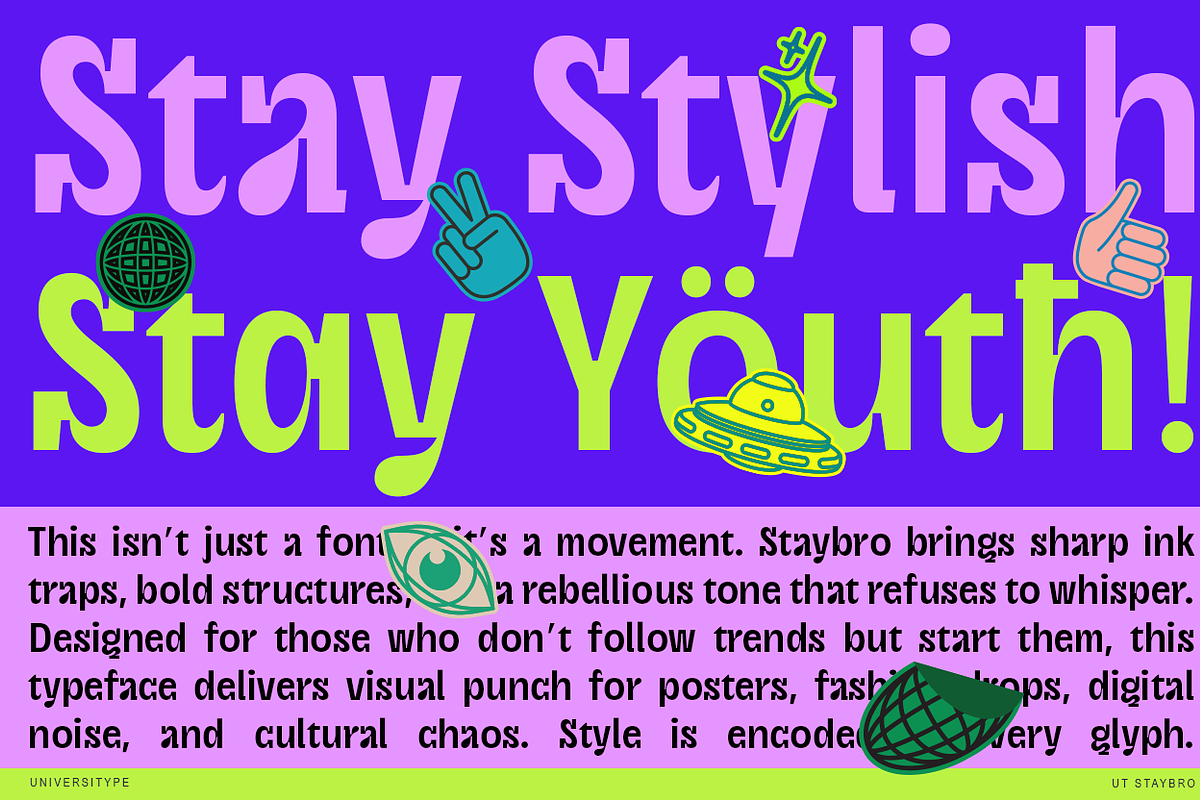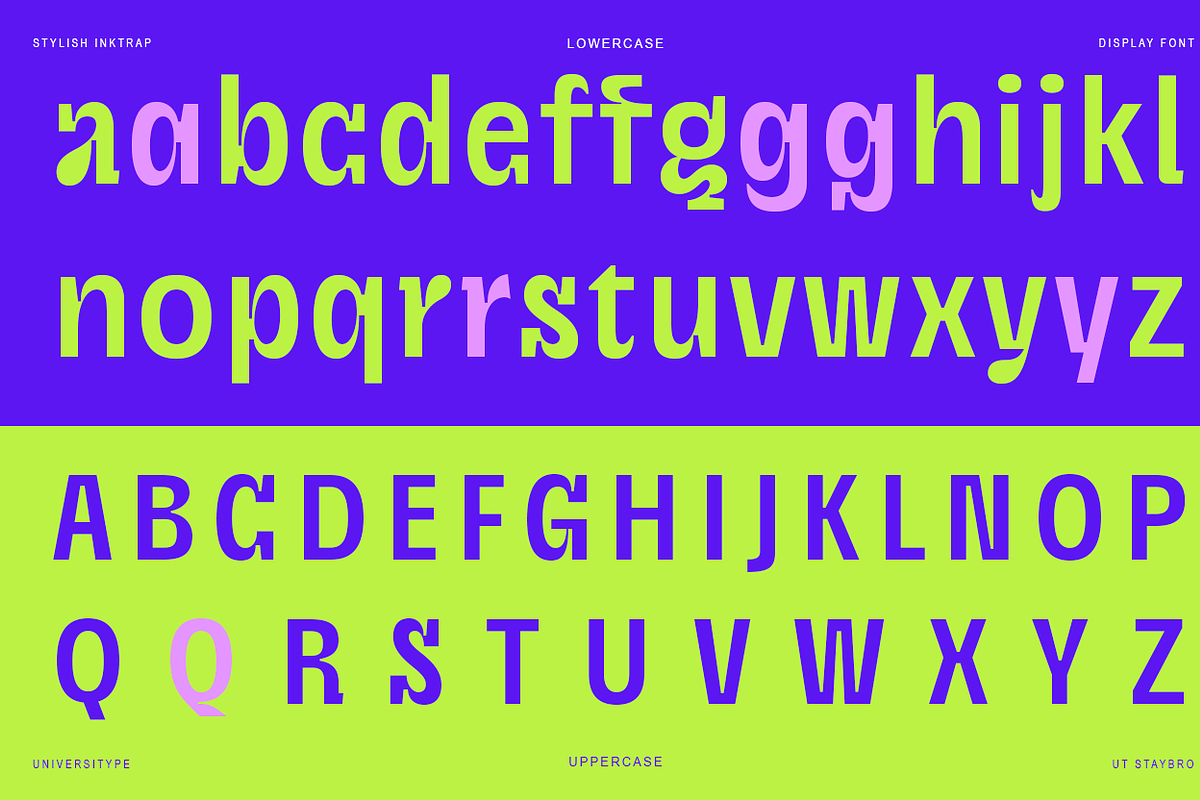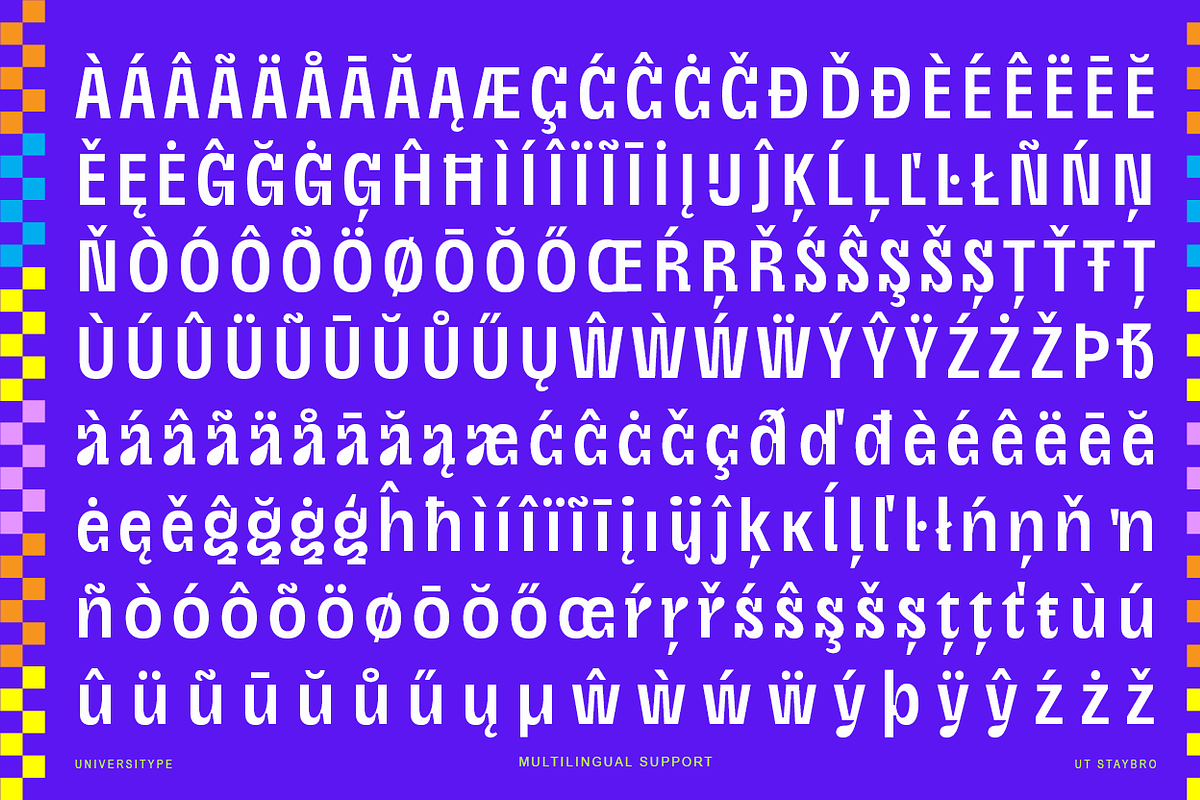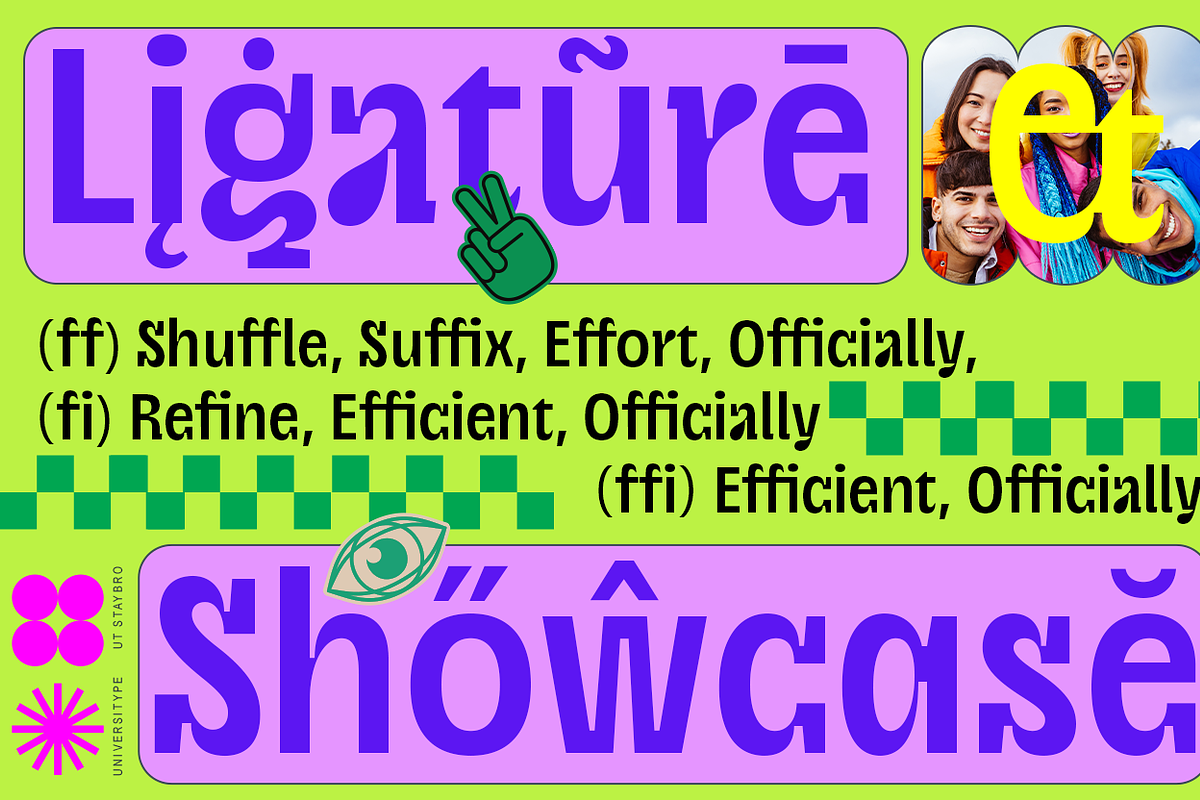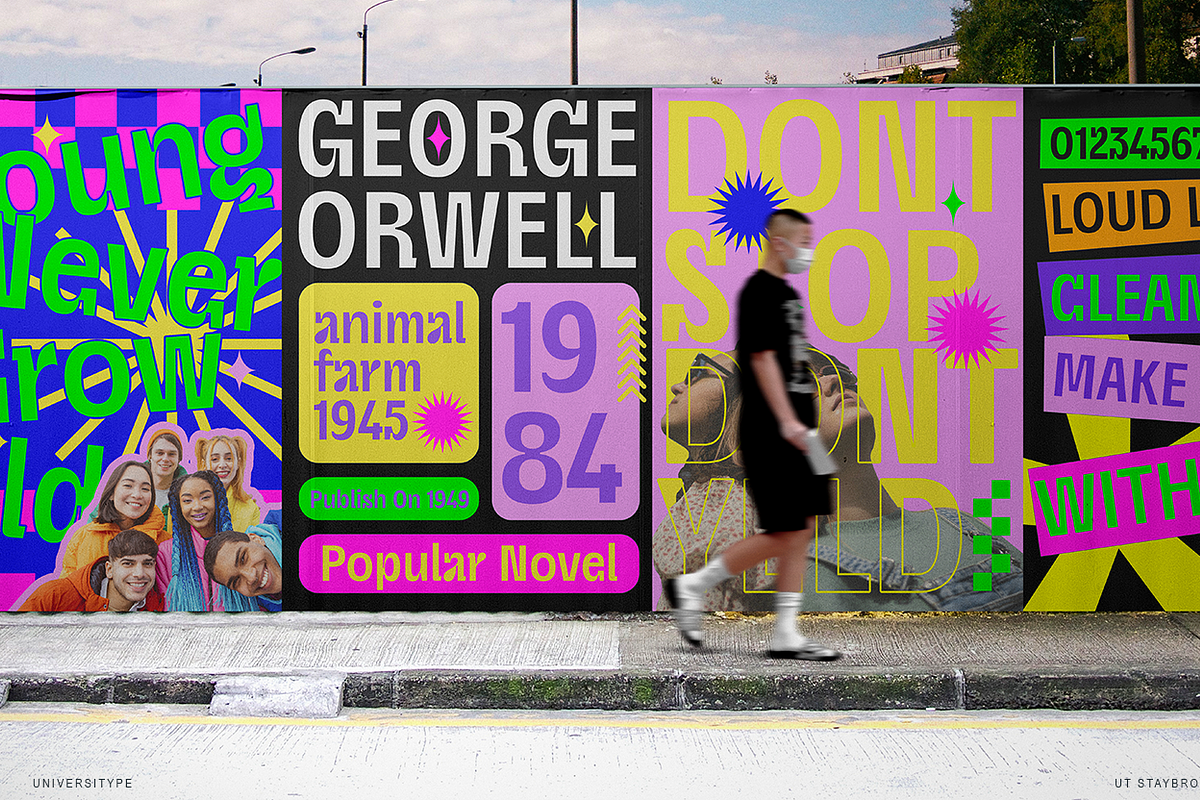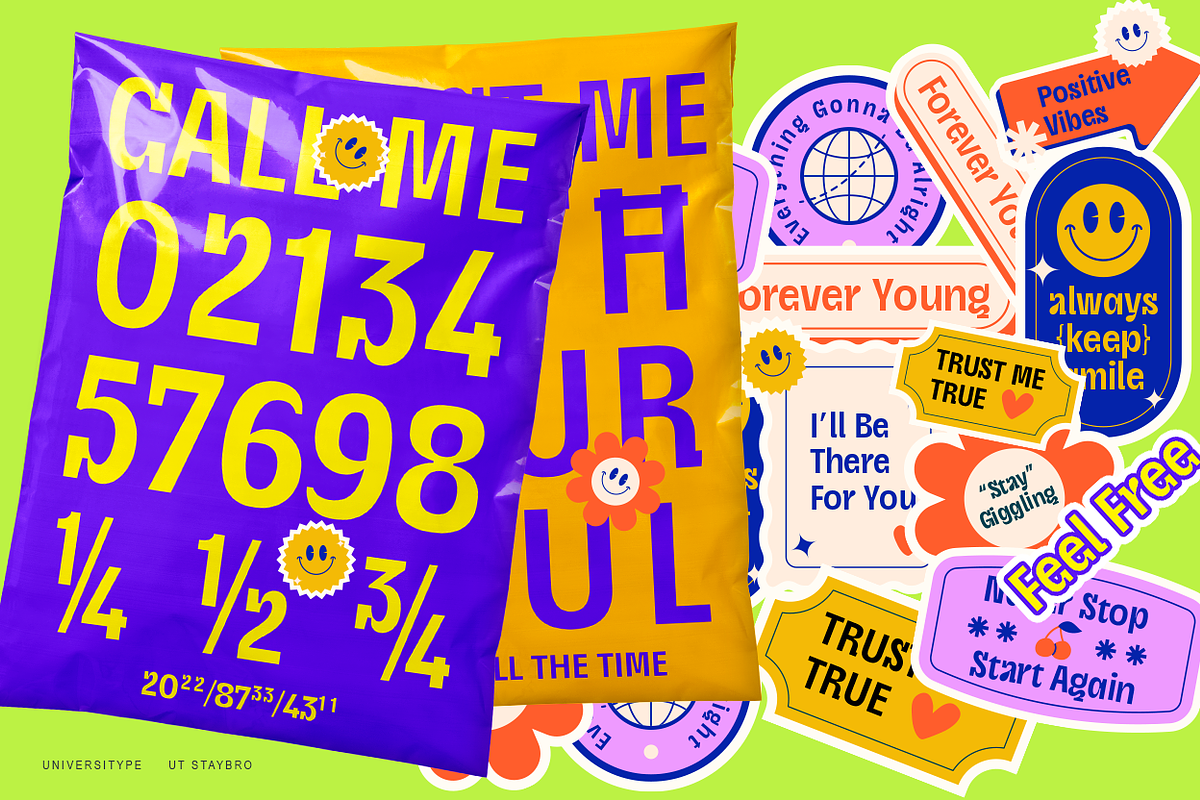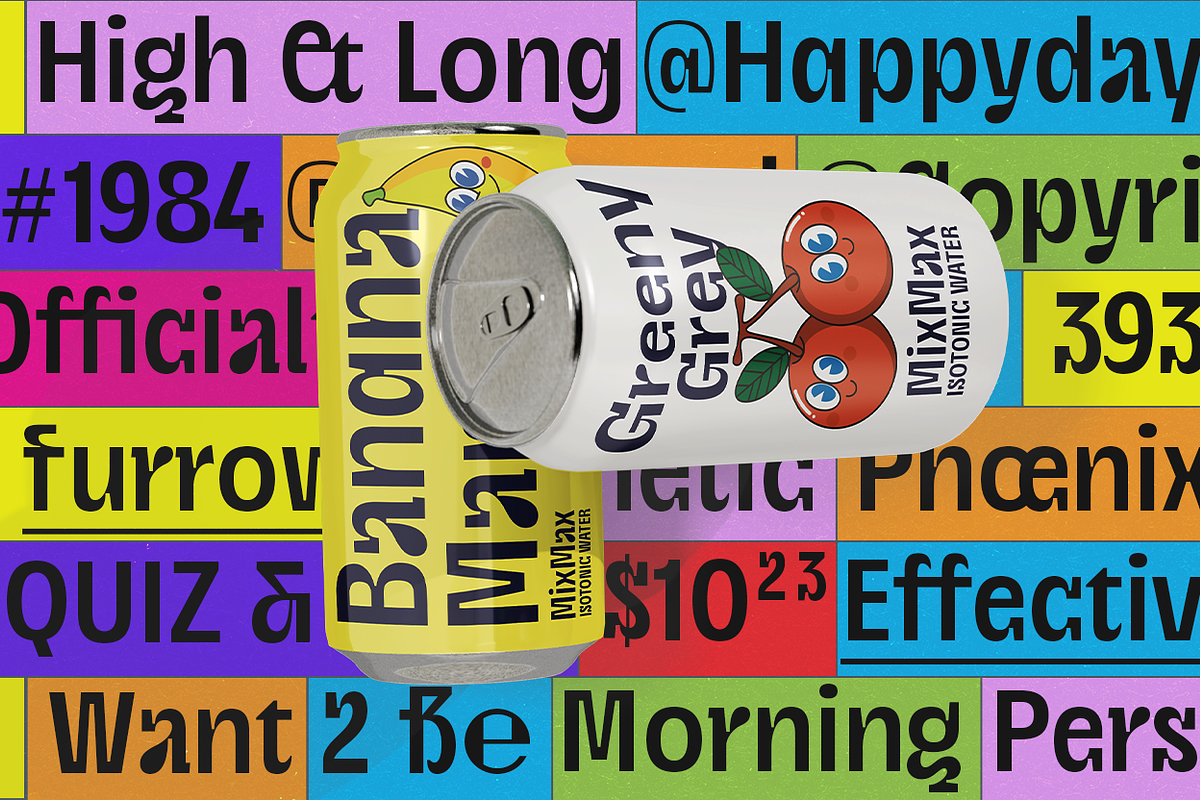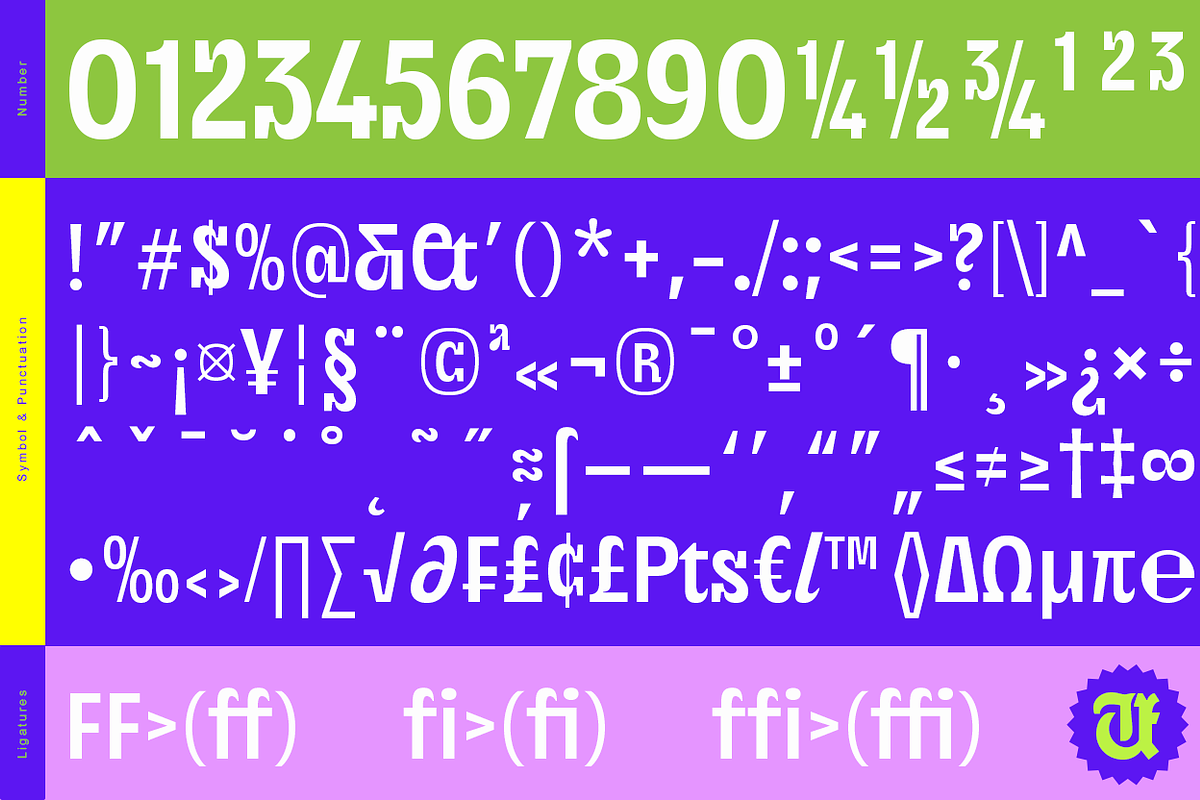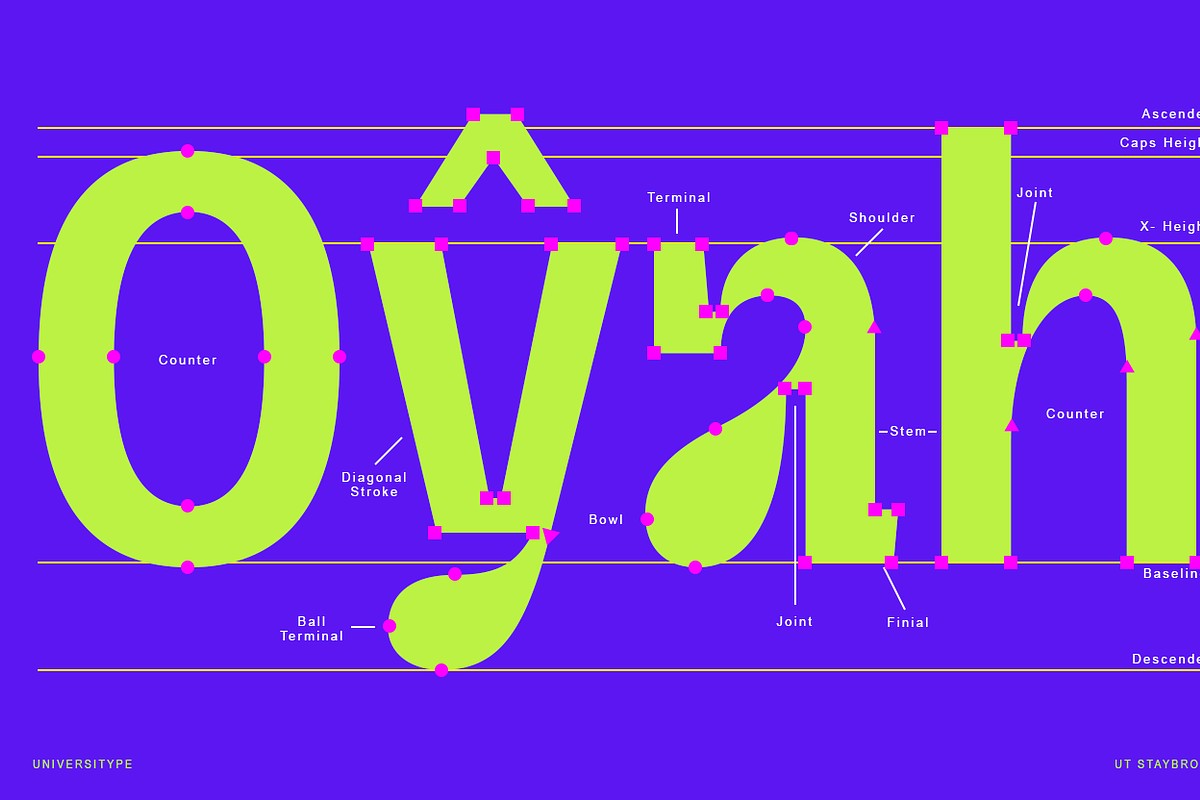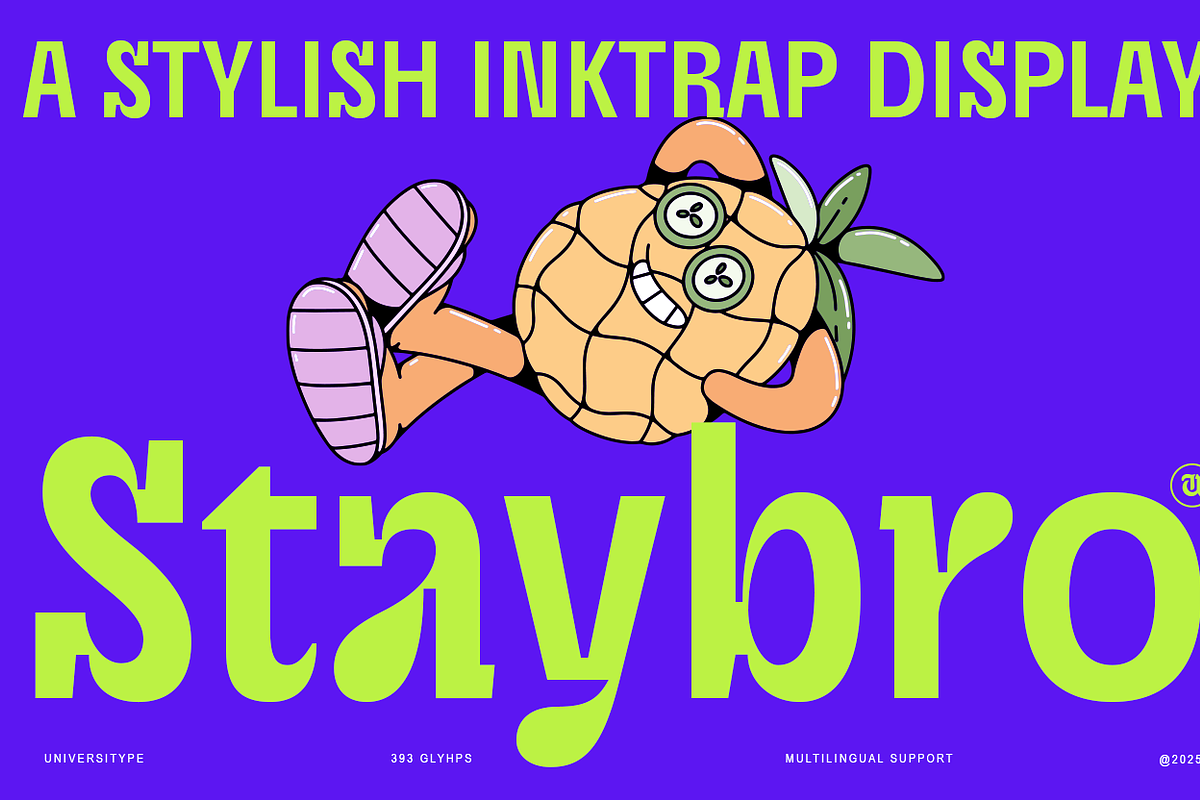
UT Staybro - A Stylish Inktrap Font
UT Staybro - Impactful Single-Style Display Typeface for Creative Designs
UT Staybro is a powerful and expressive display typeface that brings a fresh and youthful vibe to your designs. With its single, bold style, it's perfect for creating graphics that command attention and leave a lasting impression.
This typeface is ideal for graphic designers, creative directors, and marketing professionals who want to add a touch of boldness and creativity to their projects. It's particularly well-suited for industries targeting younger audiences, such as fashion, music, and entertainment.
- Heavy Weight and Thick Strokes: Ensures high visibility and impact, making it perfect for headlines and titles.
- Geometric Structure with Rounded Features: Combines modernity with approachability, enhancing the font's versatility.
- Varied Terminals: Includes flat, rounded, and angled cuts, adding dynamism and visual interest.
- High X-Height: Enhances readability, making it suitable for both large and small sizes.
- Pronounced Ascenders and Descenders: Adds height and drama, ideal for creating standout text.
- Numerals and Punctuation: Designed to match the style of the letters, ensuring consistency.
- Multilingual Support: Includes characters from various alphabets, making it suitable for global applications.
- Multiple Glyph Variations: Offers flexibility in design, allowing for creative exploration.
Inspiration Behind the Design:
UT Staybro draws inspiration from the energy and creativity of youth culture. It captures the boldness of street art, the vibrancy of digital media, and the individuality expressed through graffiti. This font is a celebration of self-expression and the desire to stand out.
- Branding and Logos: Create a unique and memorable brand identity that resonates with your audience.
- Posters and Flyers: Design striking visuals for events and promotions that capture attention.
- Social Media Graphics: Engage your audience with vibrant and attention-grabbing posts.
- Packaging Design: Make your products pop on the shelf with bold typography that stands out.
- Editorial Layouts: Enhance the visual appeal of magazines, newspapers, and online articles with impactful headlines.
- Glyph Count: 393 glyphs, including multilingual support
UT Staybro is a versatile and impactful display typeface that will elevate your designs and help you make a memorable impression. Whether you're working on branding, packaging, or social media graphics, this font is a powerful tool for creative expression.